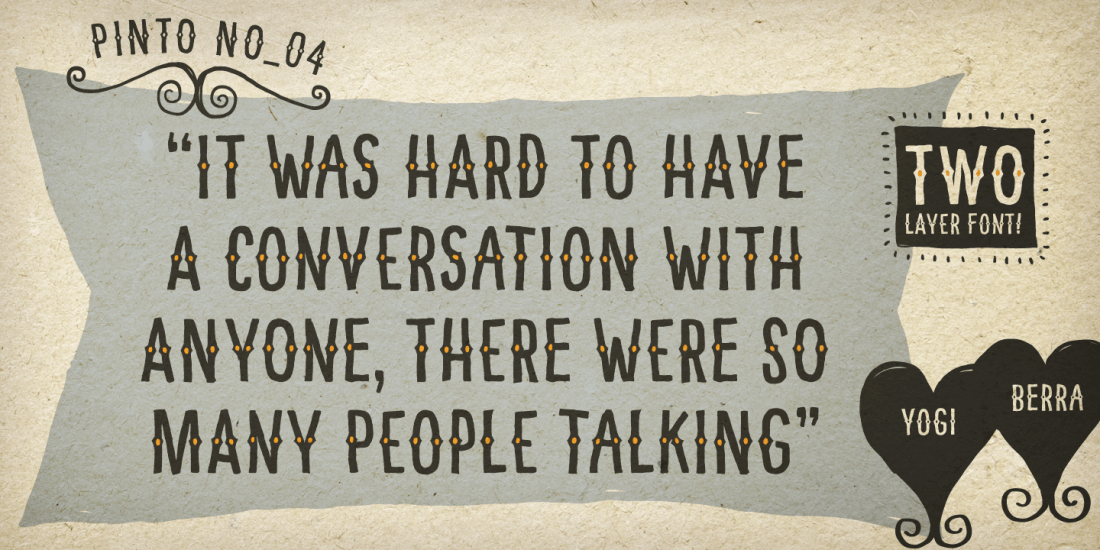
Like flexibility with your fonts? Then you're going to just love this Mighty Deal starring the Pinto Font Family! Consisting of 14 hand-drawn fonts, Pinto consists of 4 font families, along with 800+ ornaments ranging from swashes to arrows to hearts. Flexibility is the name of the game with different families and subfamilies, along with alternating characters. This irregular style is sure to add a truly realistic human touch to your latest artwork, no matter what the project.
Highlights:
- The uniquely hand-lettered Pinto typeface consists of 4 font families: Narrow Sans Serif, Slab Serif, Serif, and Western Style.
- Add a totally realistic human feeling to your latest project with Pinto's irregular appearance.
- Work in more font variety with 4 subfamilies: shadow-, outline-, display- and layer-variations.
- Really include a splash of fun to your work with more than 800 different ornaments.
- Pinto is the perfect font for use on print material such as magazines, books and packaging design.
- Additional features include loads of swashes, flourishes, arrows, hearts, frames, banners, corners, ribbons, stars and more.
- This extensive character set includes Uppercase Letters that automatically alternate.
- With different stroke thicknesses and various styles, subfamilies and features, Pinto's flexibility is virtually limitless.